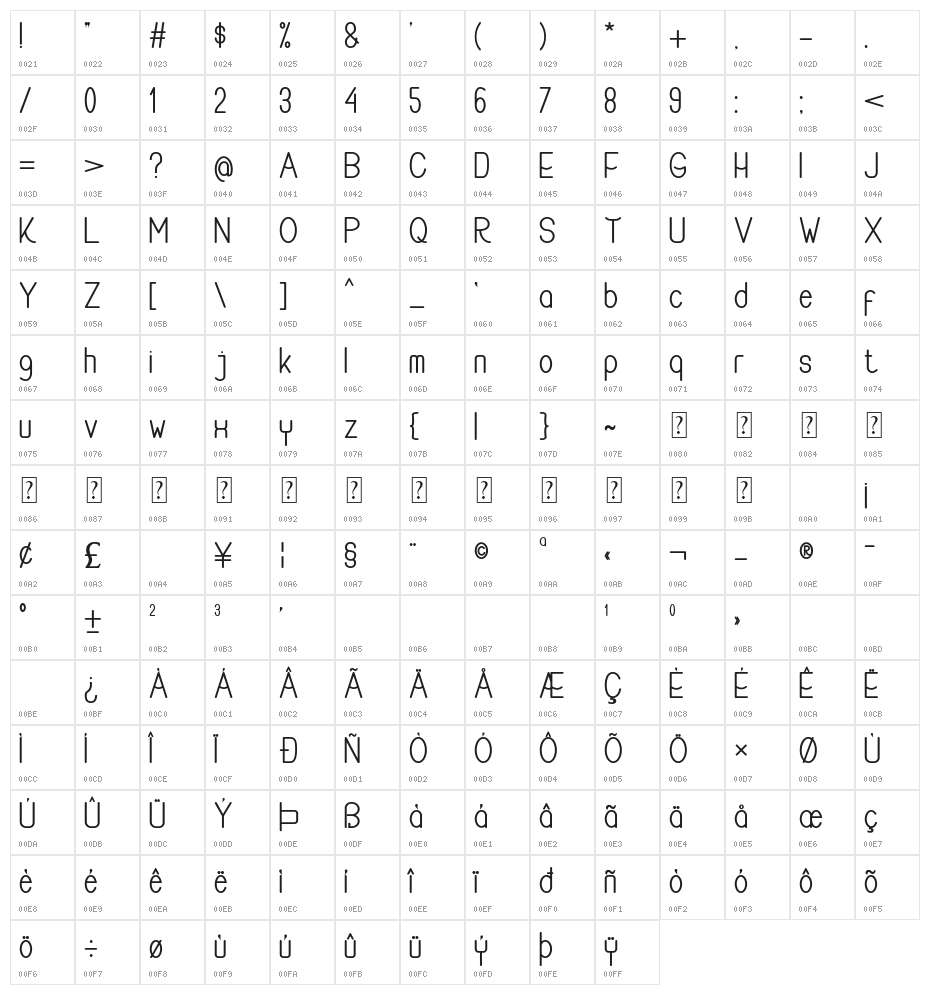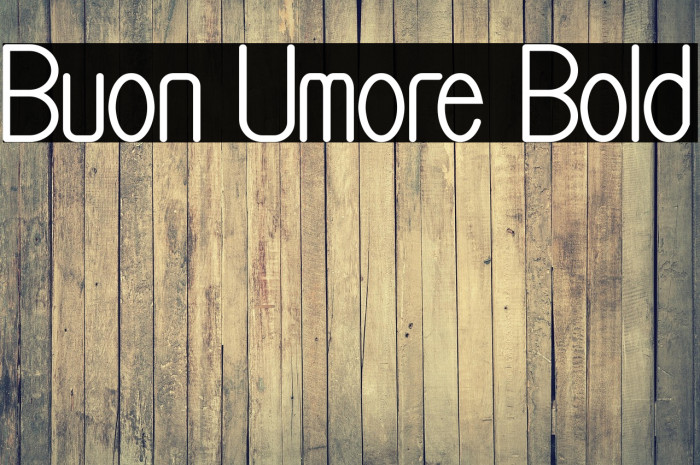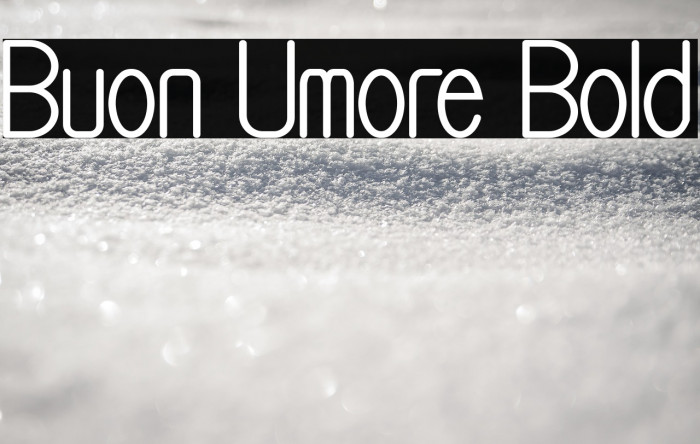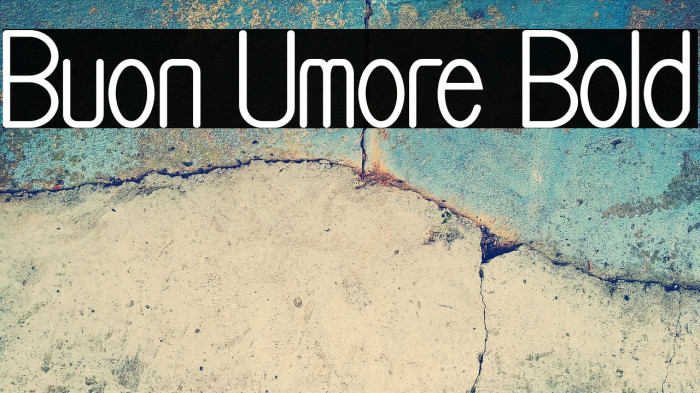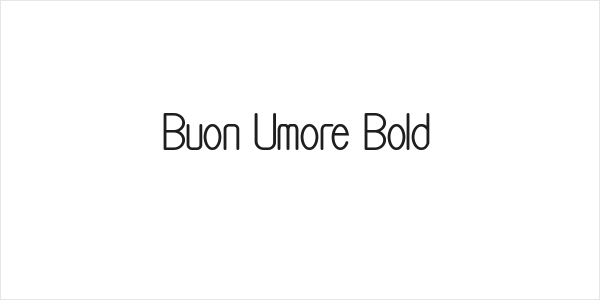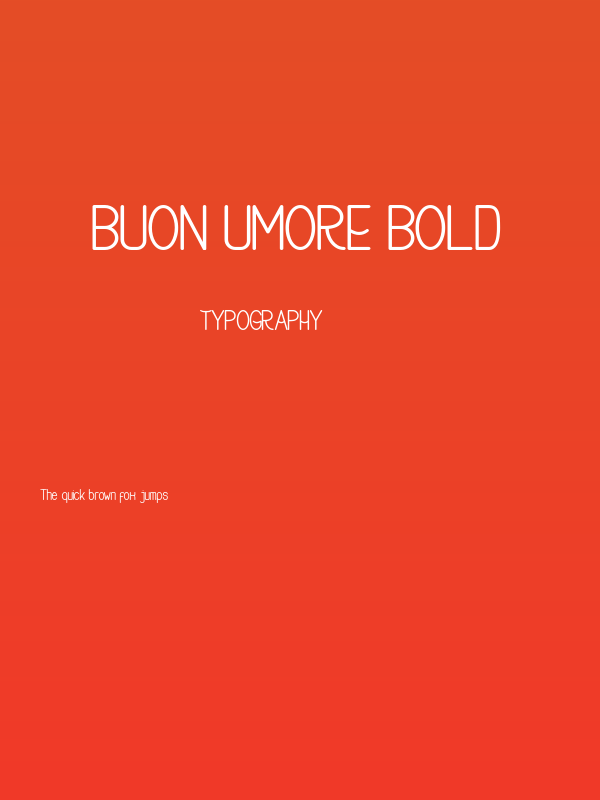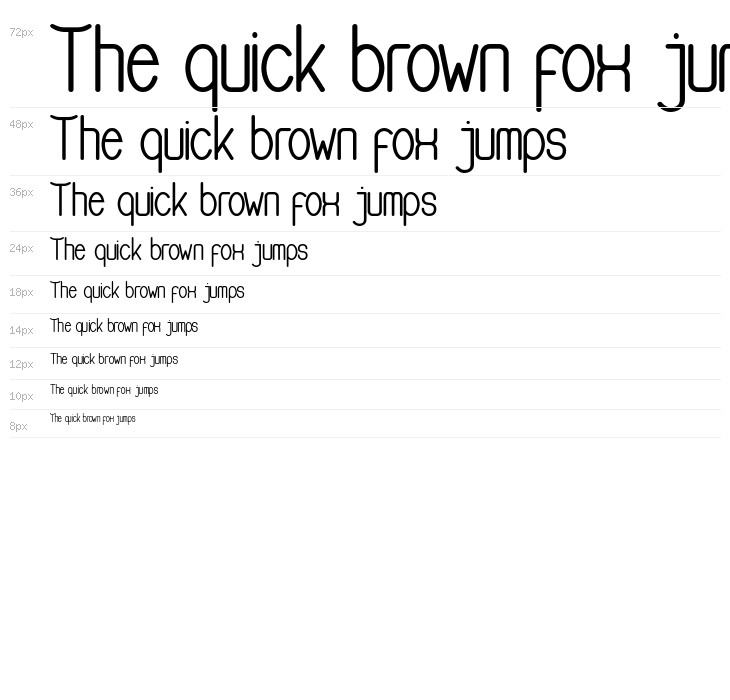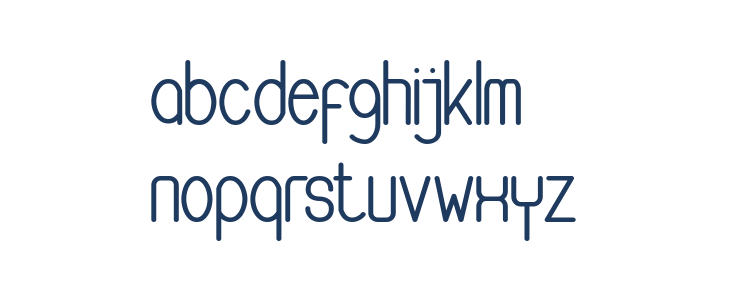
Buon Umore Bold Font
Buon Umore Bold Description
This font features a playful and rounded design, characterized by its smooth curves and consistent line thickness. The uppercase and lowercase letters maintain a uniform height, contributing to a harmonious appearance. The numerals are clear and easy to read, while the special characters blend seamlessly with the overall style. Its simplicity and readability make it suitable for a variety of applications, from casual to professional settings. The font's rounded edges give it a friendly and approachable feel, making it ideal for projects that require a touch of warmth and personality.
| Use Case | Headlines, Logos, User Interfaces |
| Proposed Projects | Ideal for children's books, playful branding, casual invitations, and friendly user interfaces. |